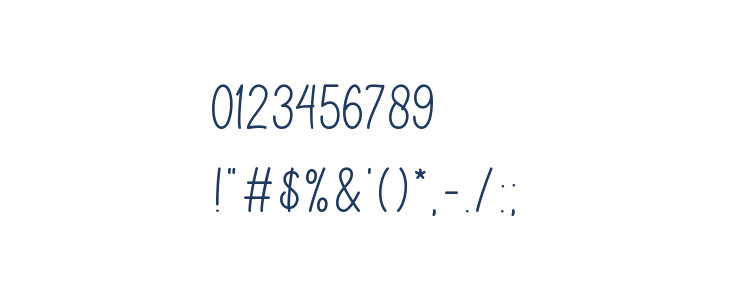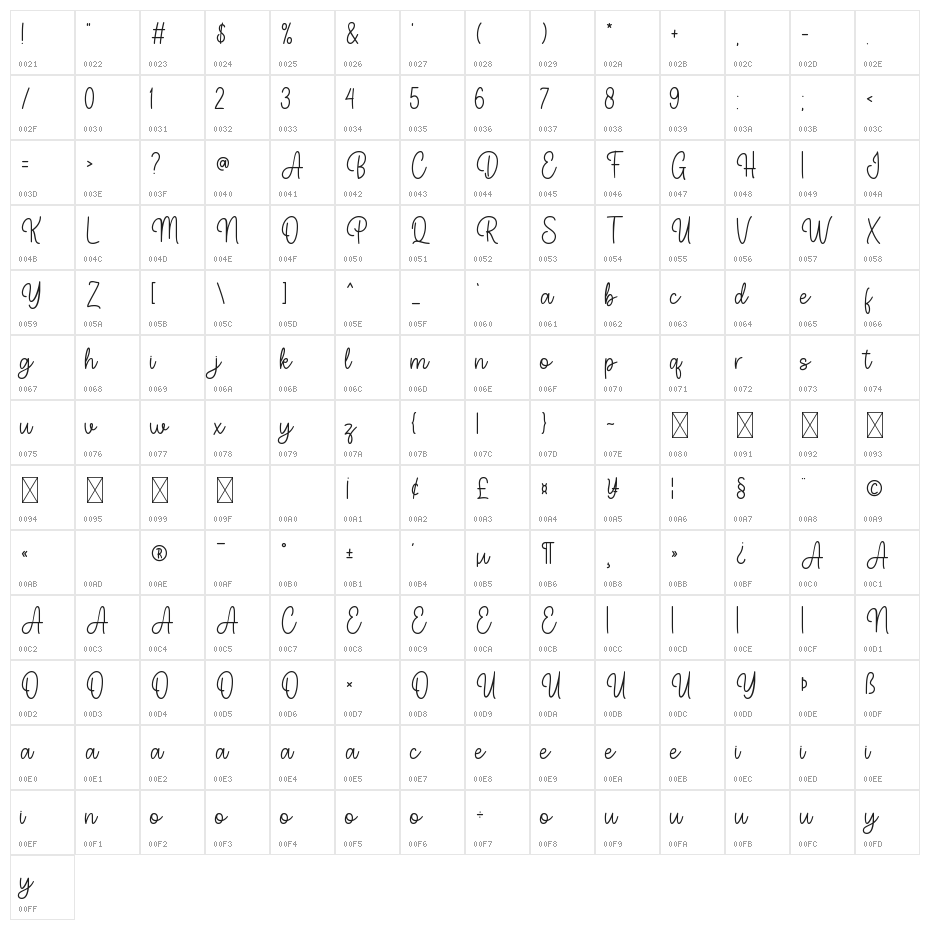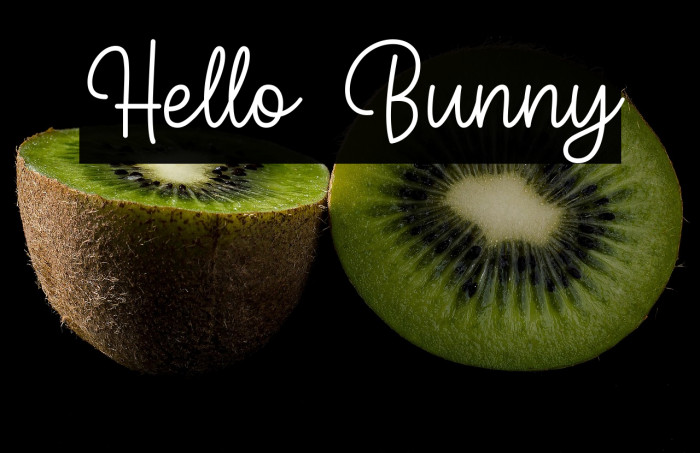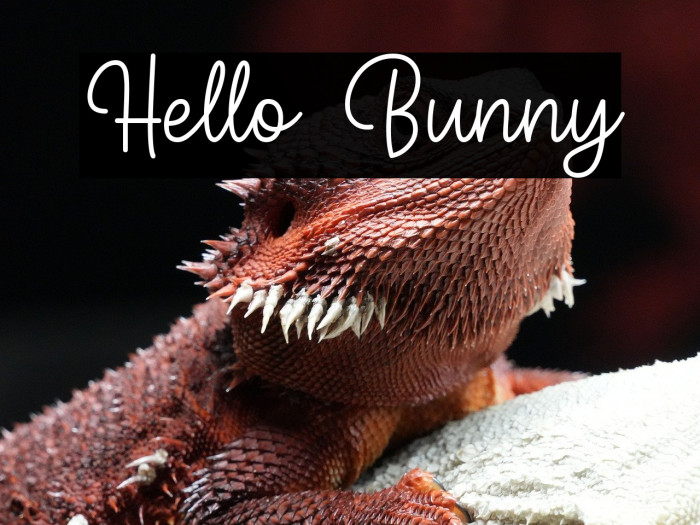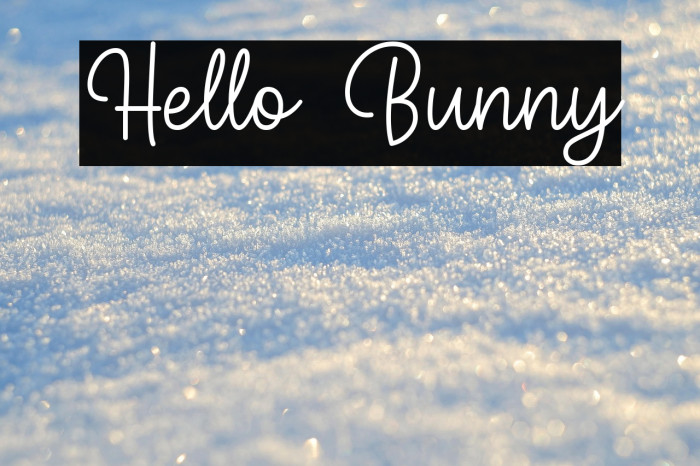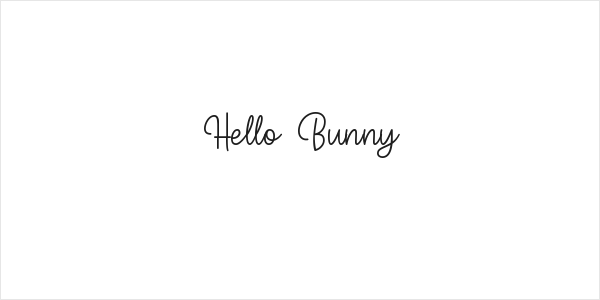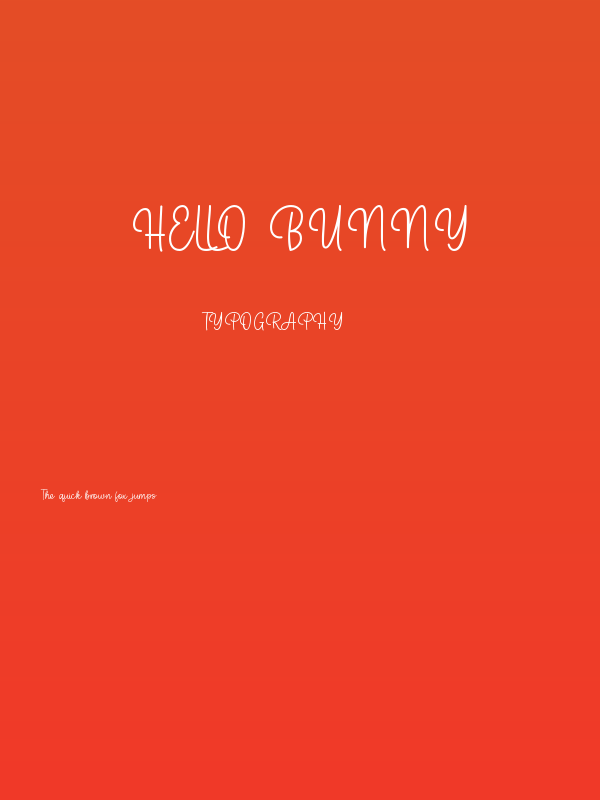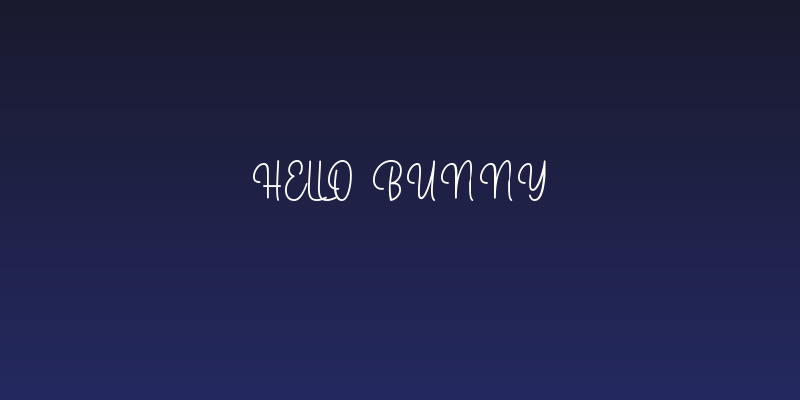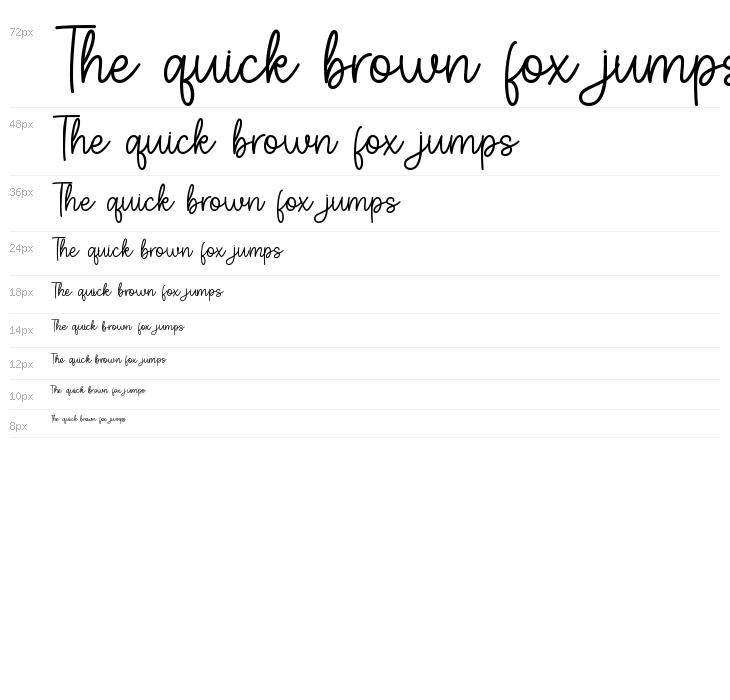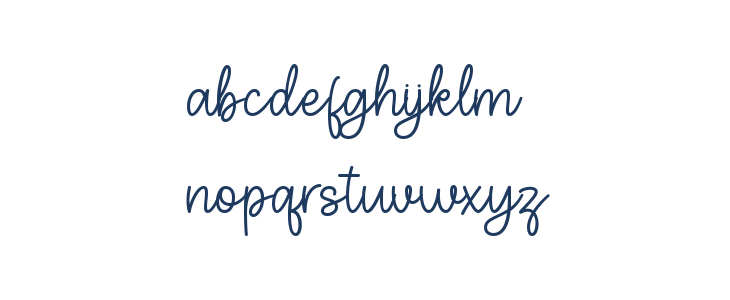
Hello Bunny Font
Hello Bunny Description
This font features a playful and whimsical script style with a handwritten appearance. The characters are smoothly connected, giving a fluid and continuous look. The uppercase letters are slightly larger and more pronounced, while the lowercase letters maintain a consistent flow. The numerals are clear and easy to read, matching the overall style of the alphabet. Special characters are included and blend seamlessly with the rest of the font. This font exudes a friendly and approachable vibe, making it suitable for creative and informal projects.